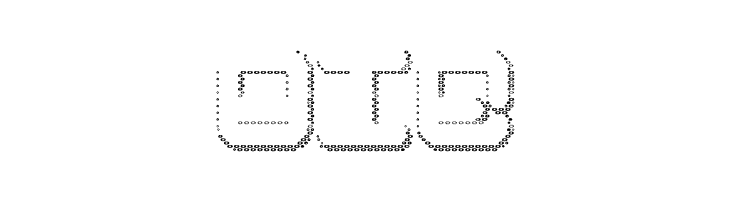
( Qkila - Quentin Aquila - www.creativefabrica.com/designer/qkila/ )
A futuristic, dotted font with a digital, pixel-like design.
( Rafael Branco - www.ararazu.com )
A bold, dotted font with a playful and artistic style.
( RecklessHen - www.recklesshen.com )
A playful, dotted font with a whimsical and friendly appearance.
( Start Digital - Luciano Arnold - startdigital.me )
A modern dotted font with evenly spaced dots forming each character.
( Vlad Viperov )
A dotted, decorative font with a playful yet structured style.
( Vladimir Nikolic - www.coroflot.com/vladimirnikolic )
A bold, 3D decorative font with dotted accents and shadow effects.
( Vladimir Nikolic - www.coroflot.com/vladimirnikolic )
A bold, 3D italic font with a dotted outline for a striking effect.
( Vladimir Nikolic - www.coroflot.com/vladimirnikolic )
A bold, 3D italic font with a dotted outline and shadow effect.
( Vladimir Nikolic - www.coroflot.com/vladimirnikolic )
A bold, decorative font with a unique dotted pattern for a lively and dynamic look.
( Vladimir Nikolic - www.coroflot.com/vladimirnikolic )
A bold, dotted font with a shadow effect, ideal for vintage or theatrical designs.